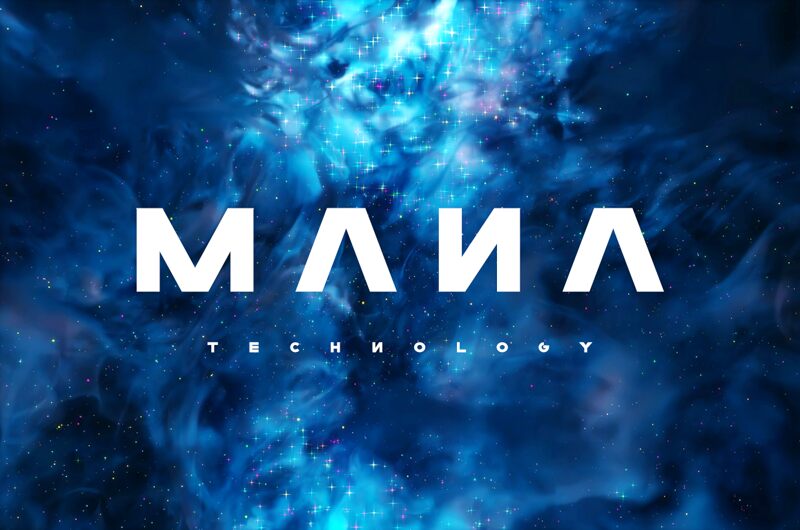
Fear Logo font is an experimental display typeface by ffeeaarr inspired by technology and modern applications. Despite having a rather complex letter structure, the characters keep the legibility needed for any textual project. With the font, you get access to a range of letters, all uppercase and with varying and unequal line cuts.